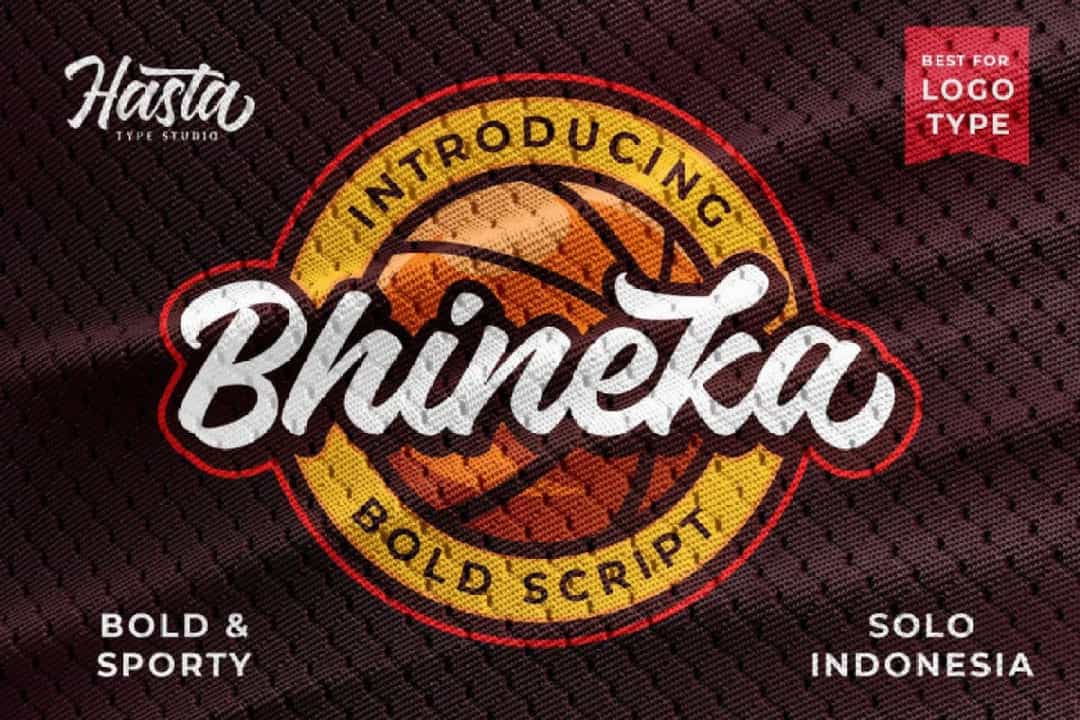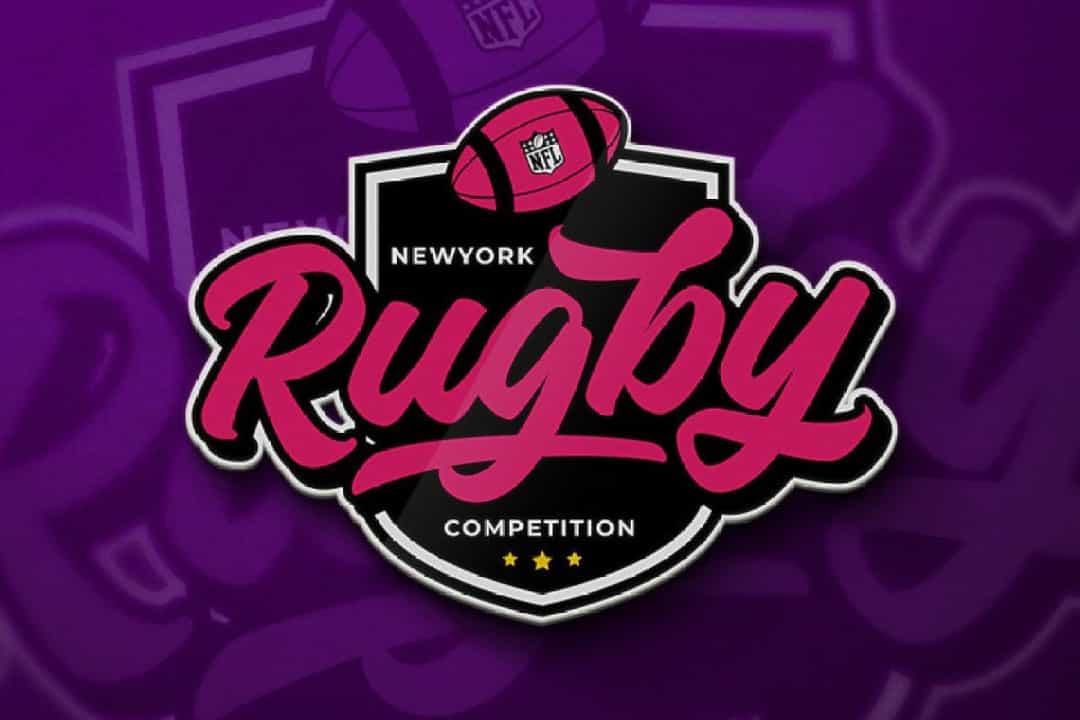
Bhineka can be described as an energetic and bold script font ideal for logotypes. Perfect for sports logotypes, product packaging logos, clothing logos and merchandise branding projects and many others – Bhineka font can add life and energy to creative projects!